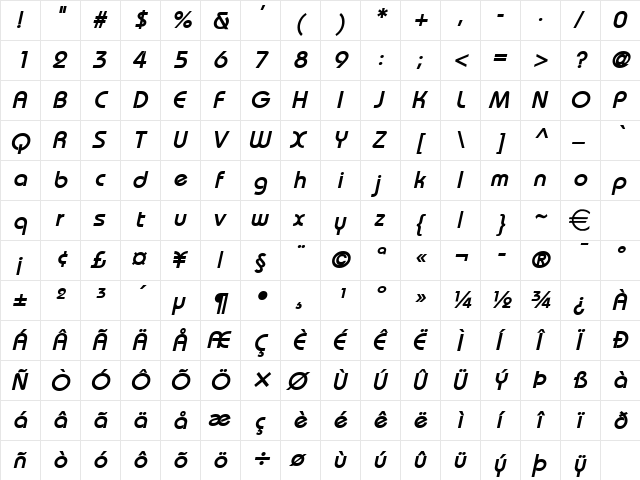
Bimini BoldItalic
Design Context for Bimini Typeface
Bimini takes a measured approach to typography — its balanced proportions and neutral character make it a reliable workhorse for both digital and print work. The slanted form adds forward momentum and visual energy. Its bold stroke weight gives it real presence on the page.